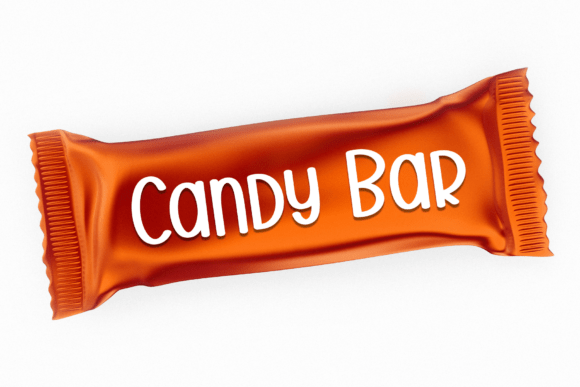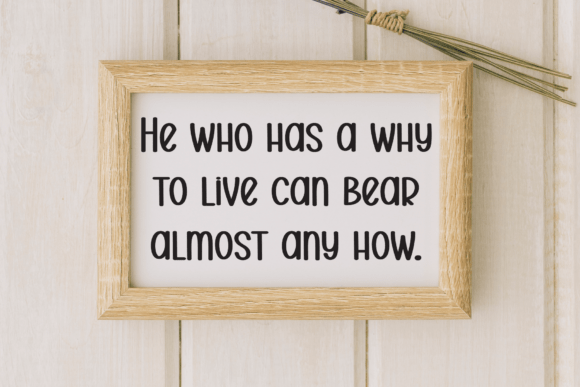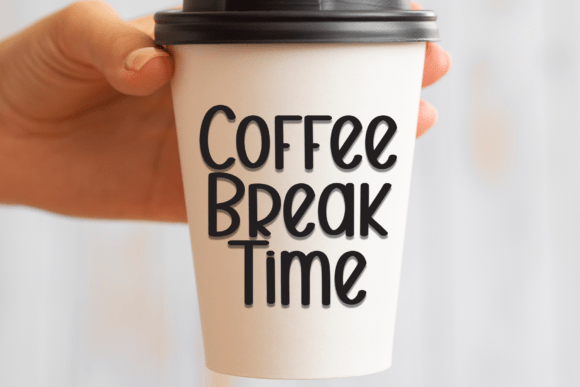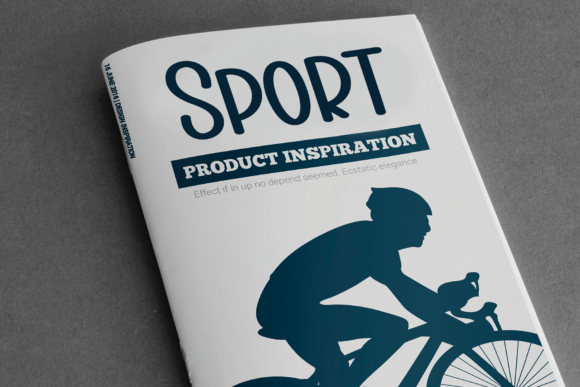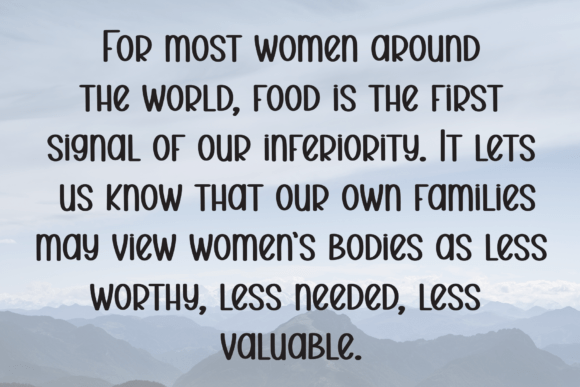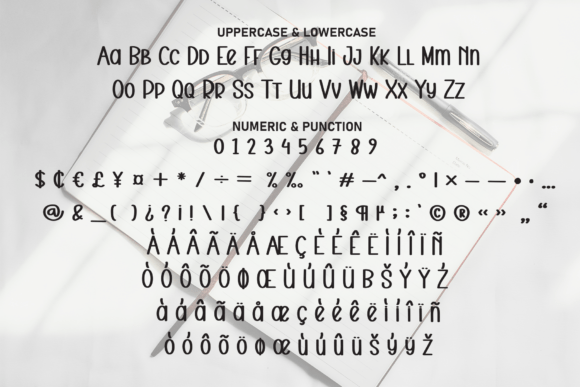
Introduction to School Notes Font
Do you remember the excitement of rummaging through your school notebooks, filled with colorful doodles, notes, and memories of your favorite teachers? Those carefree days of creativity and self-expression are still alive and well in the world of design, thanks to fonts like School Notes Font. This casual and neat display font is a perfect blend of charm and clarity, making it an ideal design resource for creatives who want to add a personal touch to their projects.
As a designer, you’re always on the lookout for high-quality design resources that can elevate your work. School Notes Font fits the bill, offering a fresh and friendly vibe that’s perfect for packaging, posters, and social media graphics. Whether you’re working on a creative project or just need a free download to spice up your social media, this font is sure to impress.
Key Features of School Notes Font
- High-quality, unique design perfect for creative projects, educational materials, and personal use.
Honest Review: School Notes Font
As a designer, I’m always on the lookout for high-quality design resources to enhance my creative projects. Recently, I stumbled upon the School Notes Font, and I must say, it’s a great addition to any designer’s toolkit.
What works well about the School Notes Font is its versatility. It’s perfect for creating a nostalgic and vintage look, and its free download option makes it an excellent resource for designers on a budget. The font also comes with a transparent background, making it easy to use in various design scenarios.
- ✨ Easy to use and customize
- ✨ Transparent background for easy integration
However, there are some limitations to consider. The font may not be suitable for modern and minimalist designs, as its vintage aesthetic can be overpowering. Additionally, the font’s character set may not be as extensive as some other fonts on the market.
Overall, I’d give the School Notes Font 4 out of 5 stars. It’s a great design resource for designers looking to add a touch of nostalgia to their creative projects. While it may have some limitations, its high quality and free download option make it a valuable addition to any design library.
Common Use Cases for School Notes Font
School Notes Font is ideal for use in educational projects, creative writing, and design inspiration. You can also use it to add a personal touch to presentations, social media graphics, and blog posts.